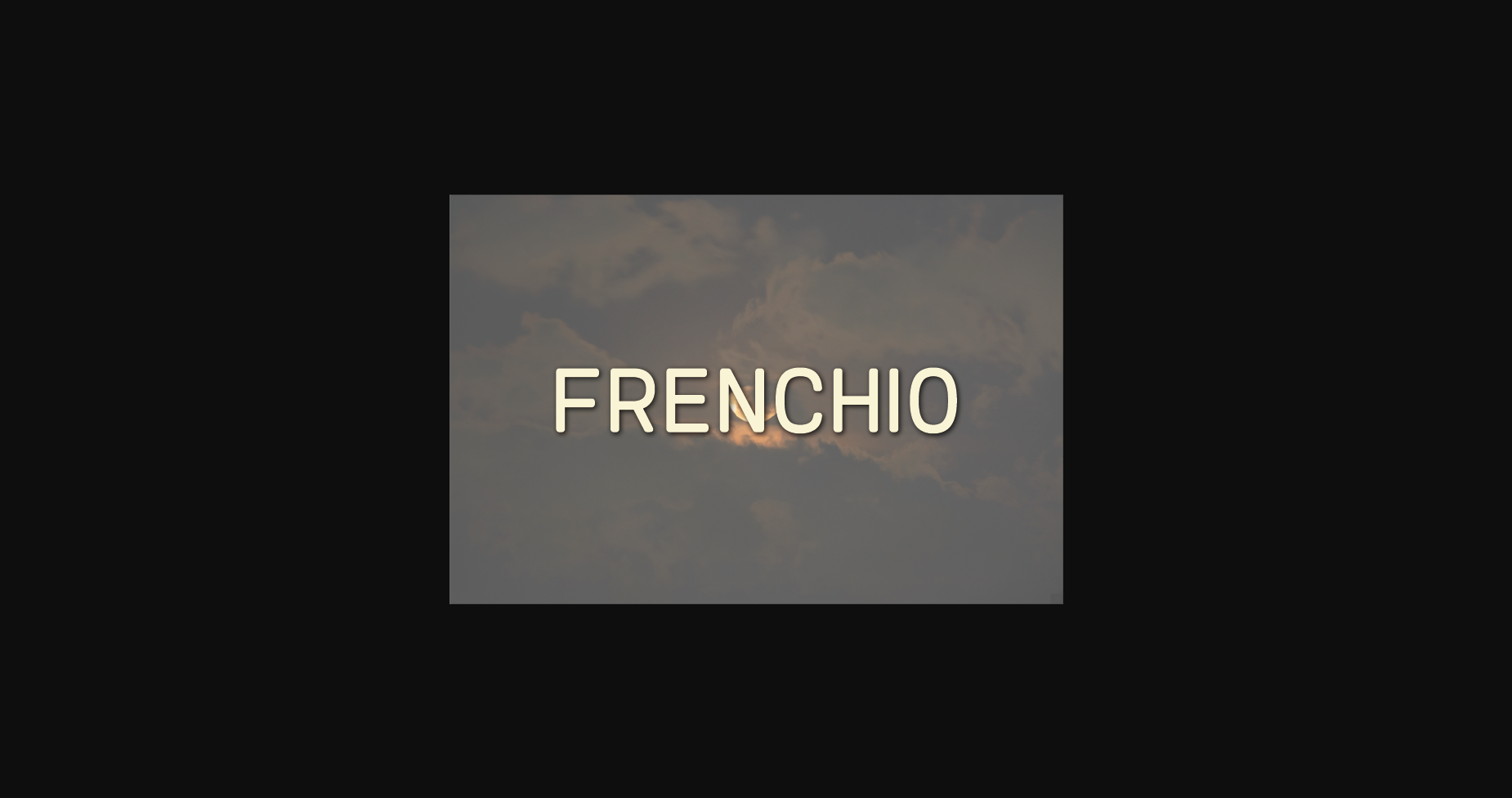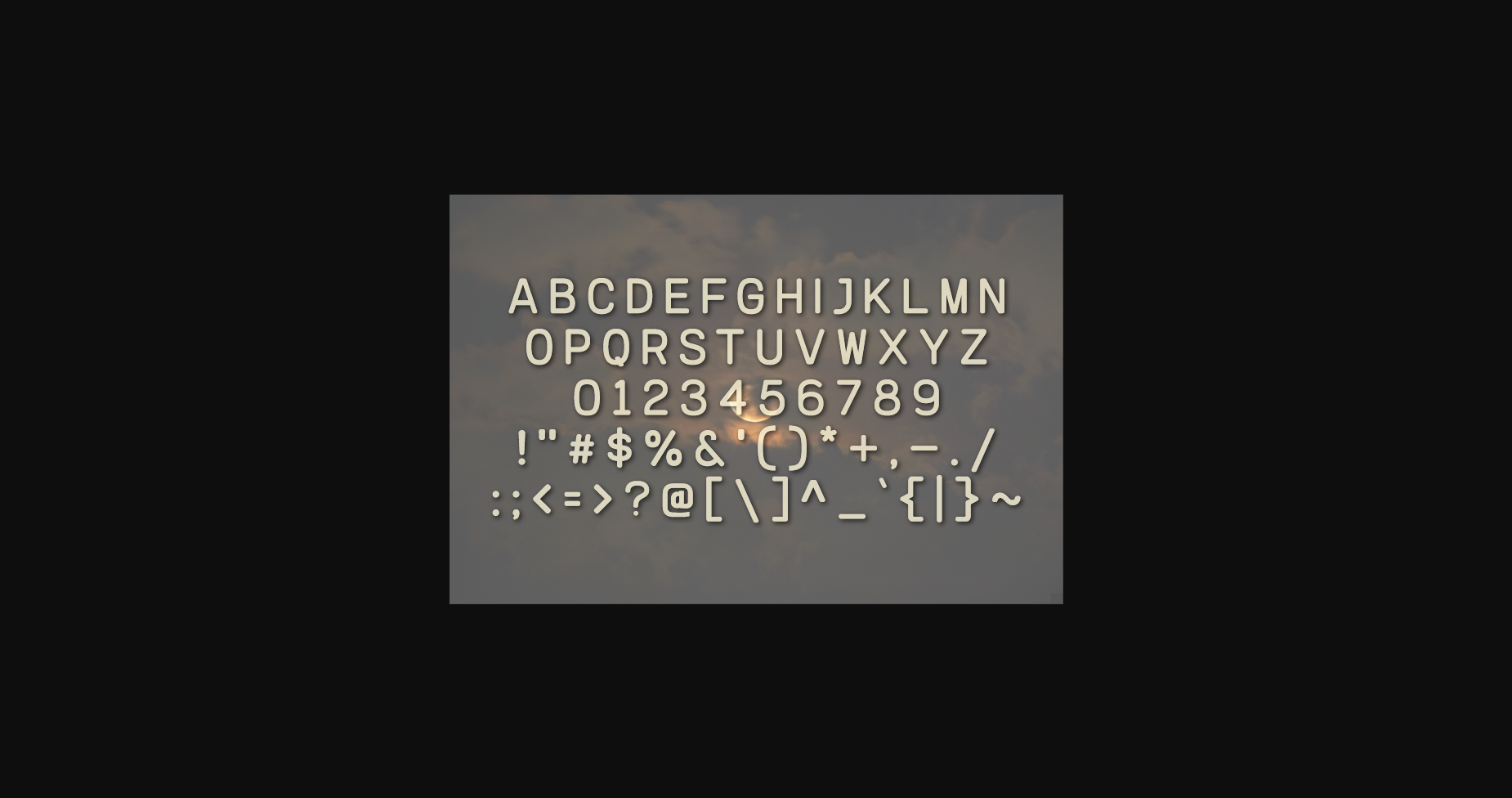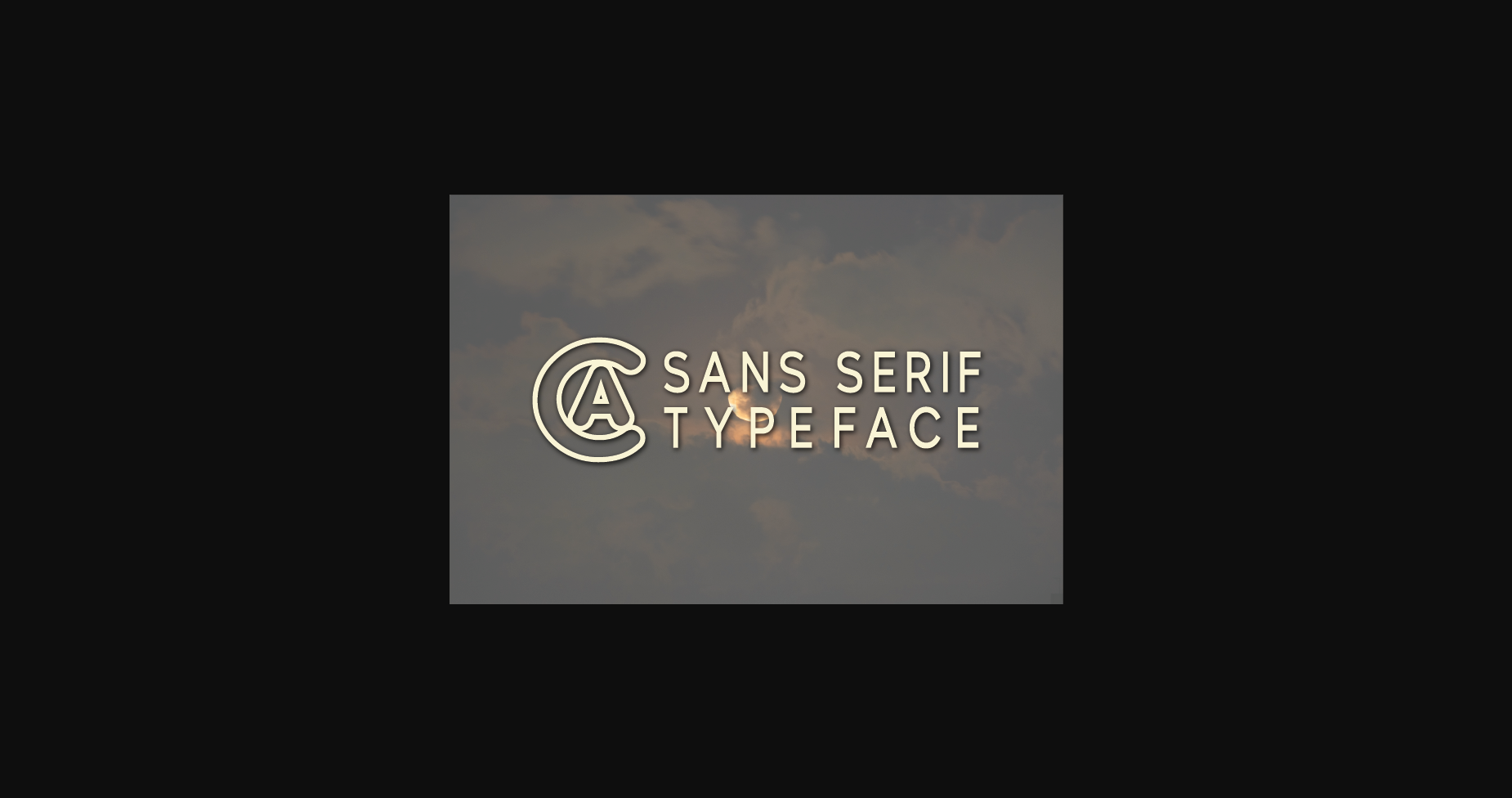
About Frenchio Font
Frenchio is a minimal and neat sans serif font. This font is suitable for designs such as t-shirts, sportswear, logos, advertisements, clothing, and more.